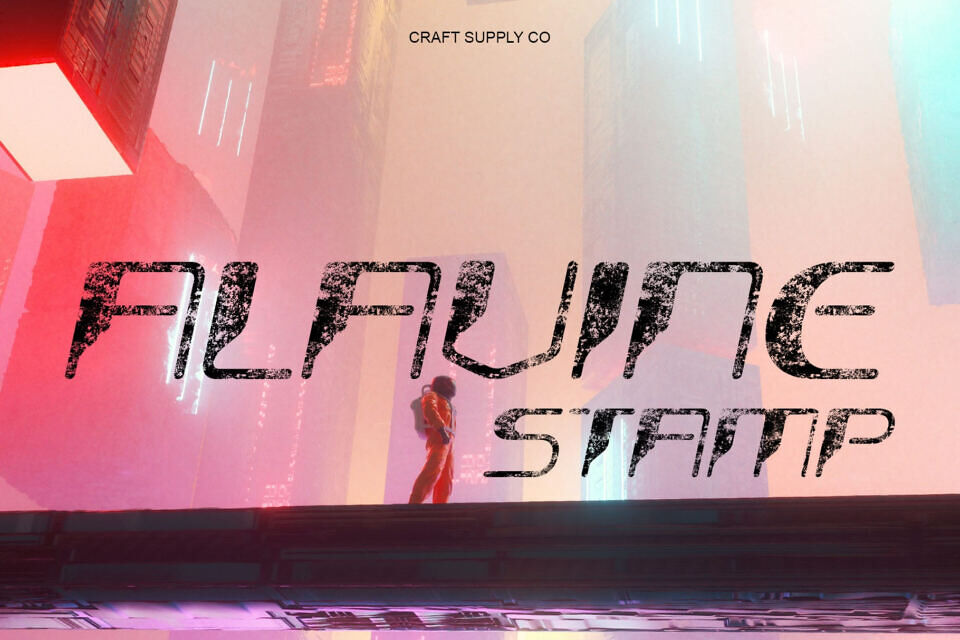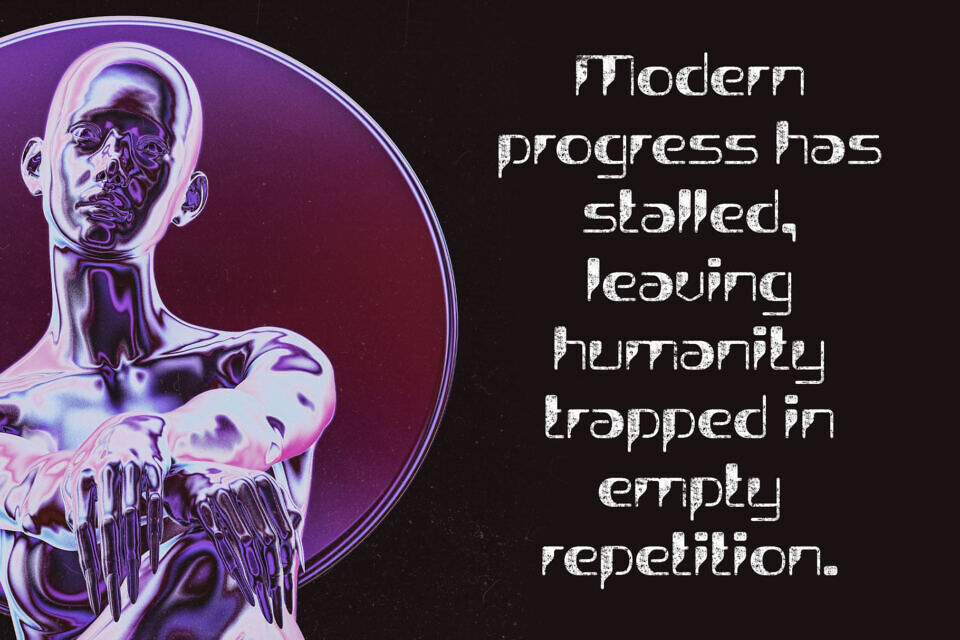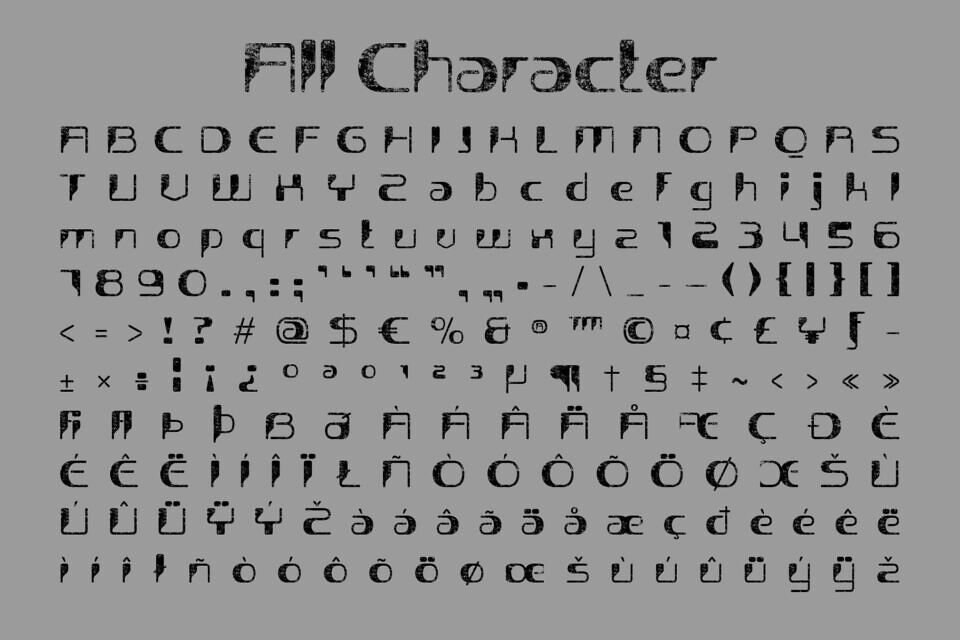
Alavine Stamp is a bold cyberpunk techno font blending futuristic precision with vintage grit. Its structured letterforms and mechanical rhythm evoke neon-lit cities and digital rebellion, while the stamp texture adds an authentic, handcrafted touch.
This unique fusion of industrial imperfection and modern geometry creates a powerful visual identity ideal for gaming visuals, posters, and digital branding. Perfect for designers seeking to capture innovation, rebellion, and the spirit of digital evolution, Alavine Stamp embodies the harmony between progress and raw creative energy.